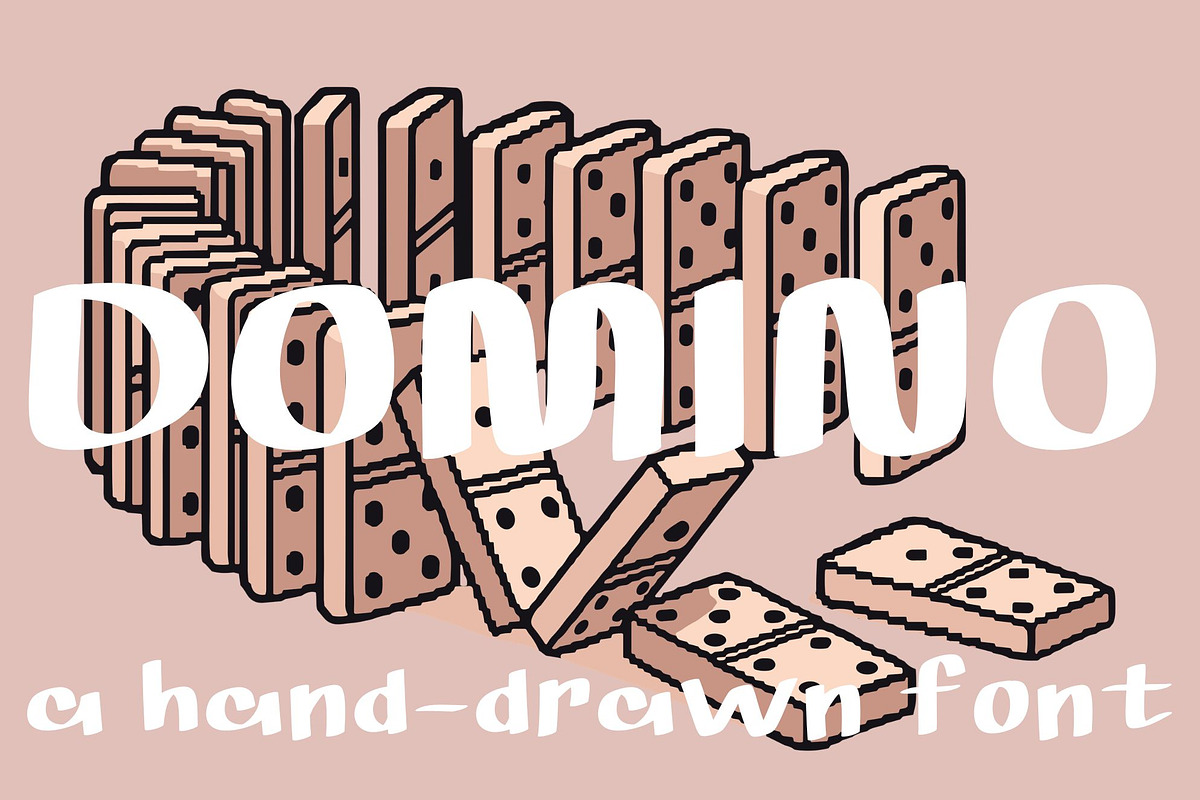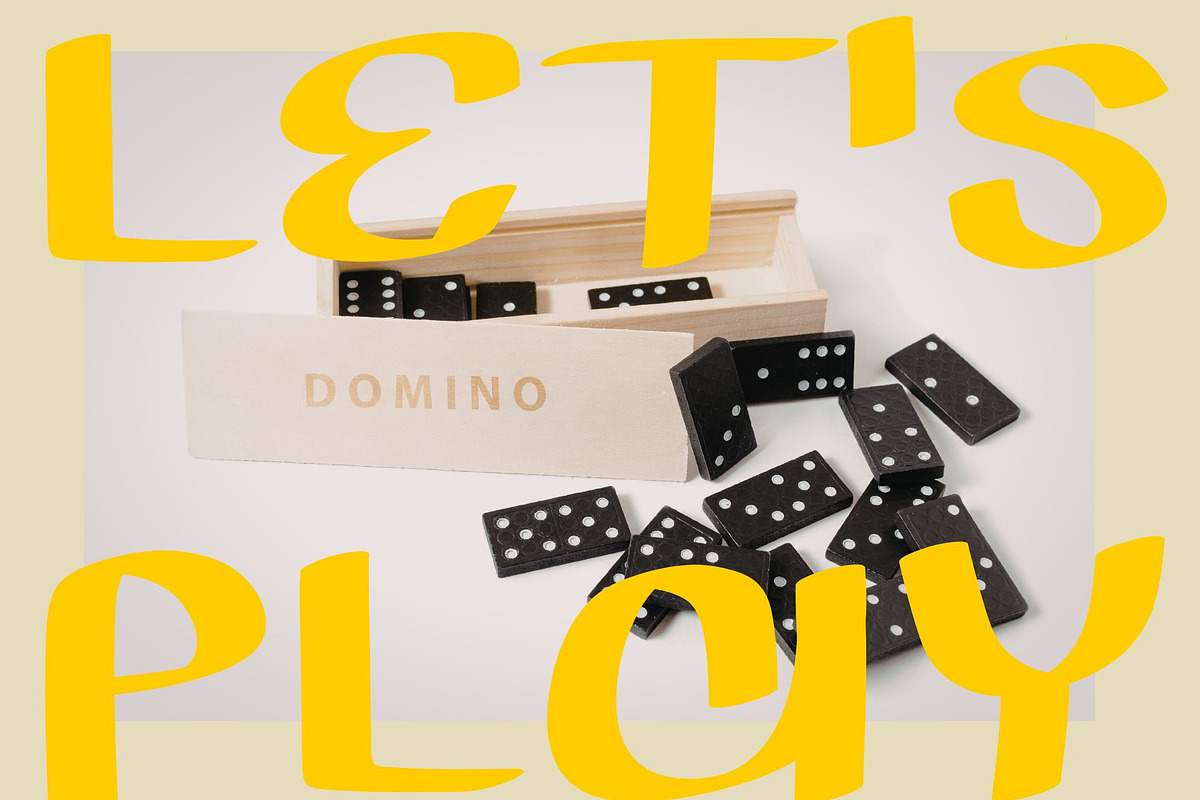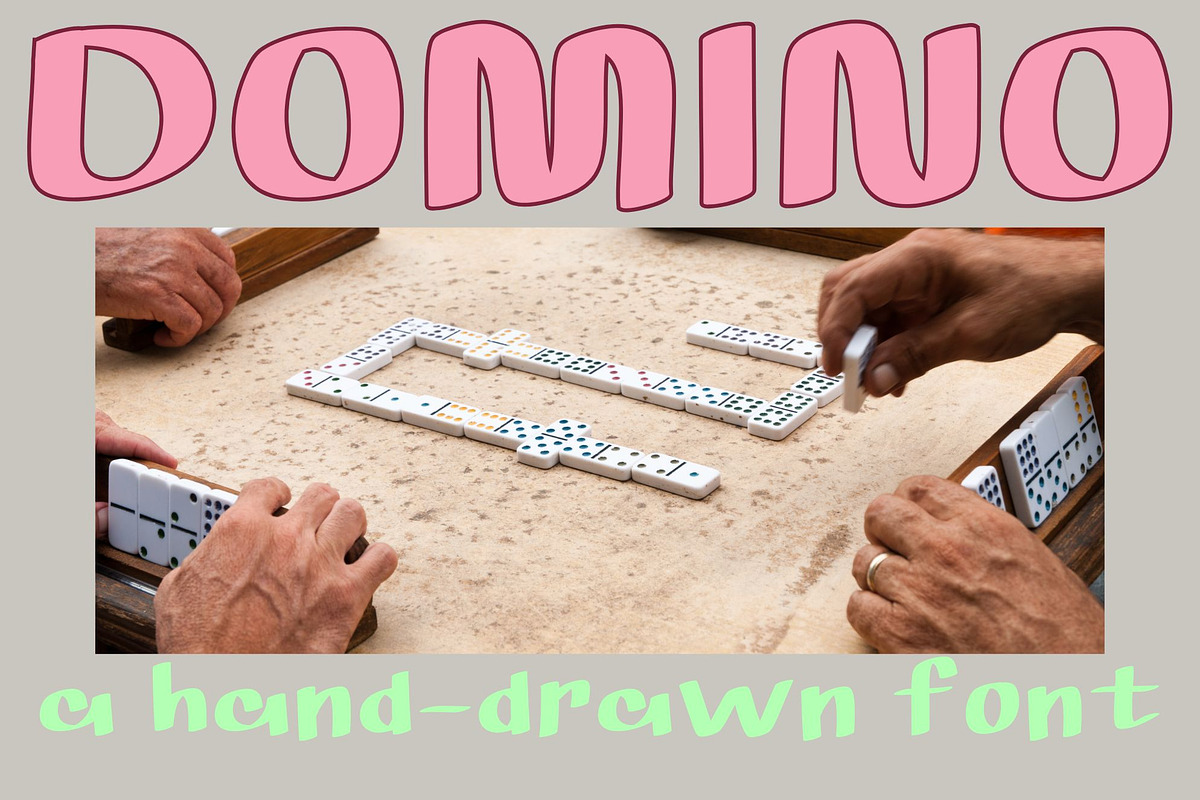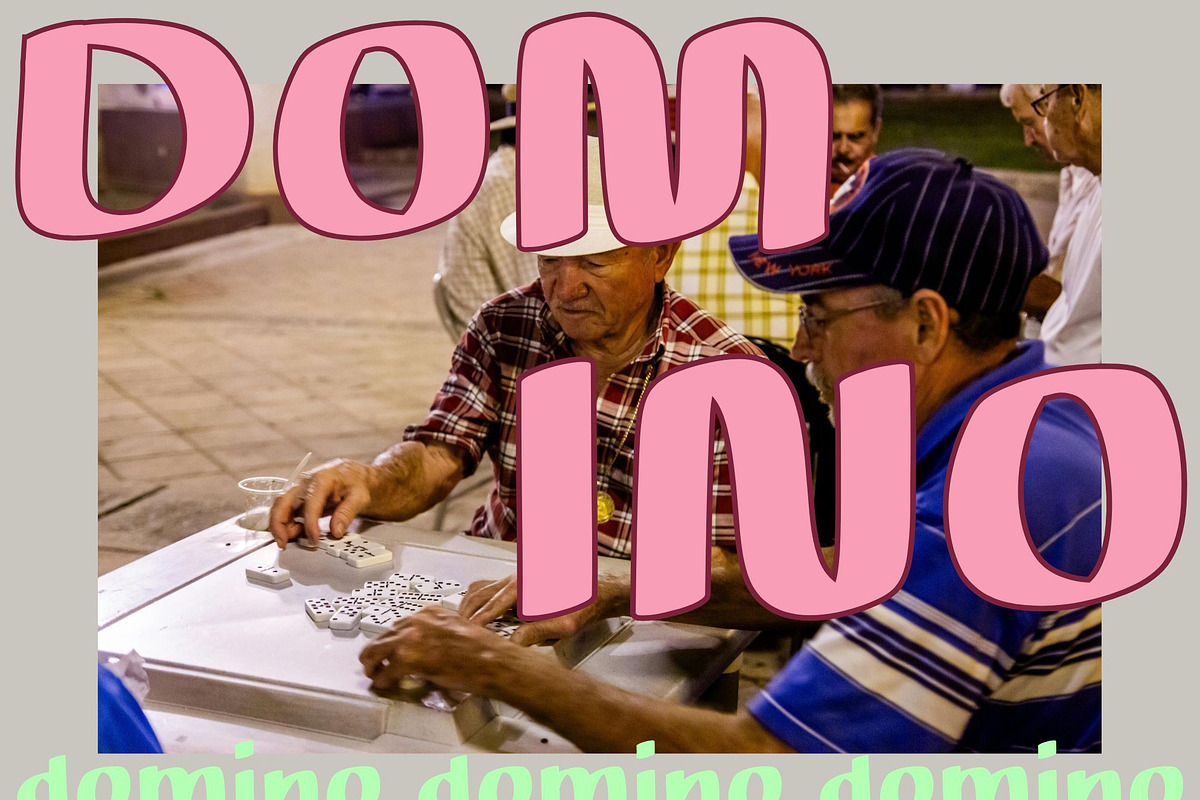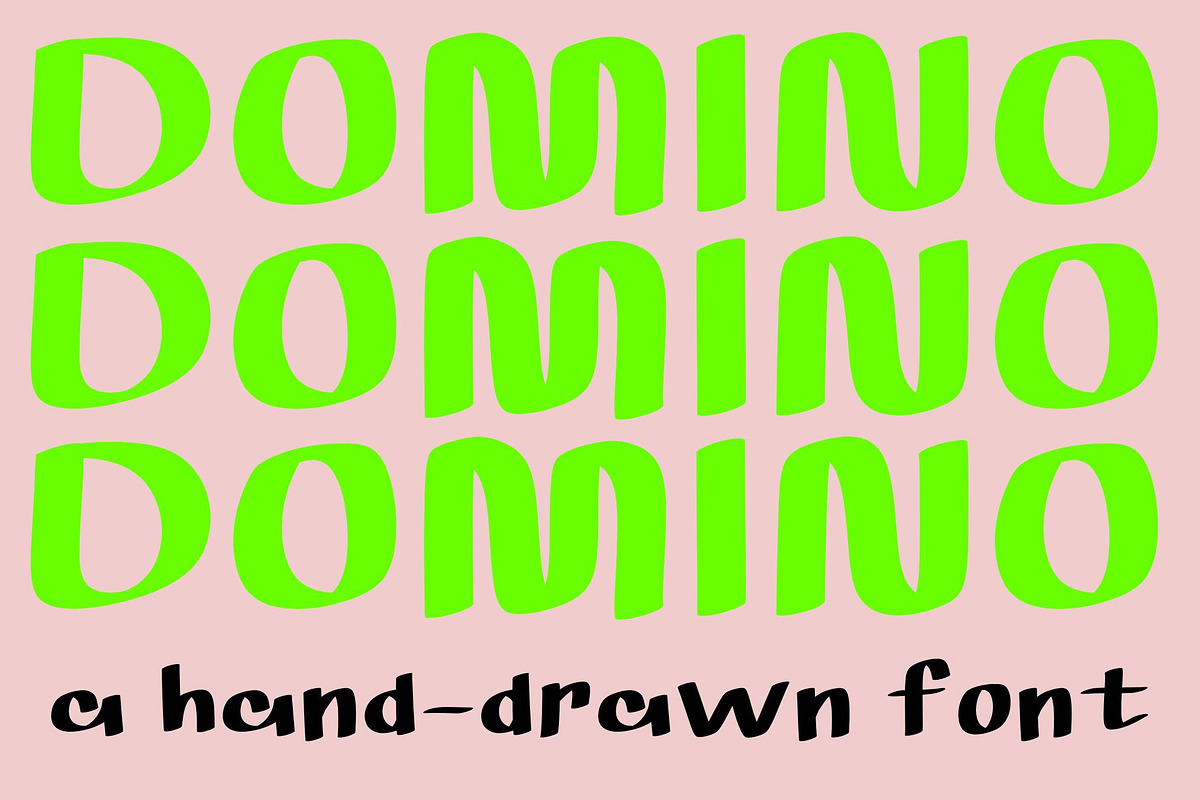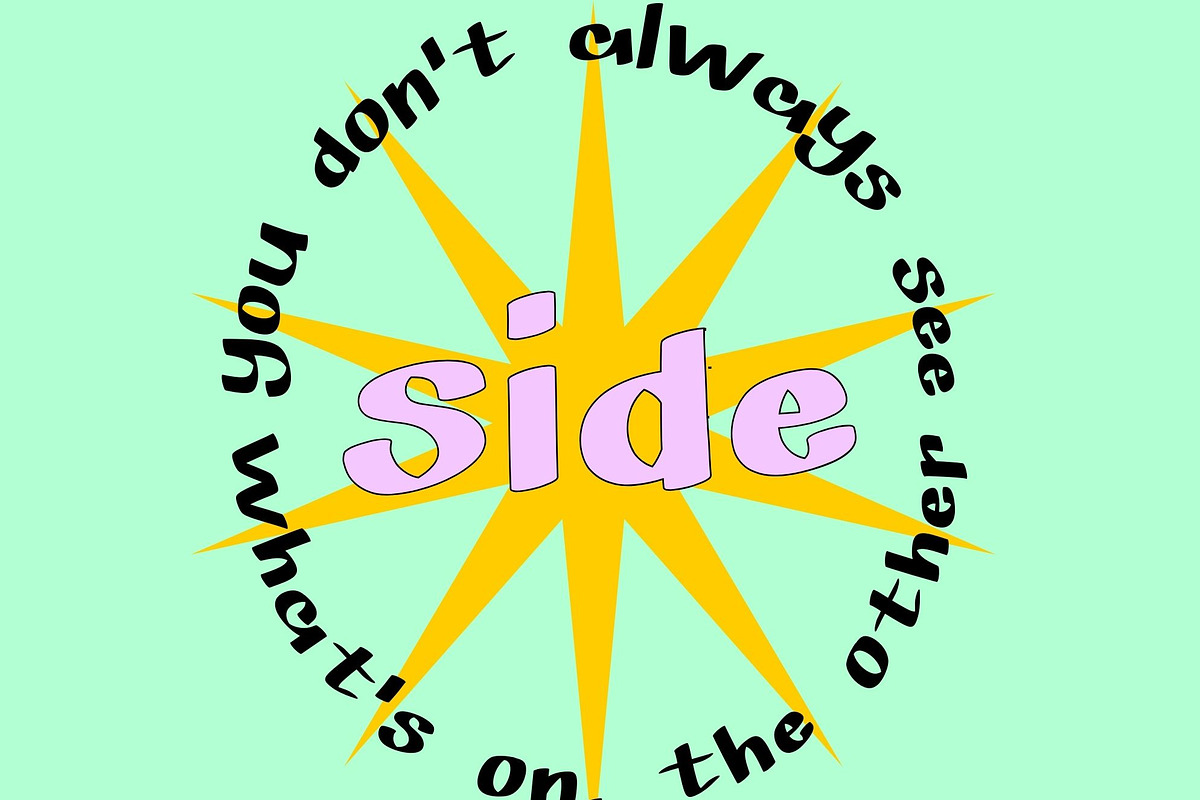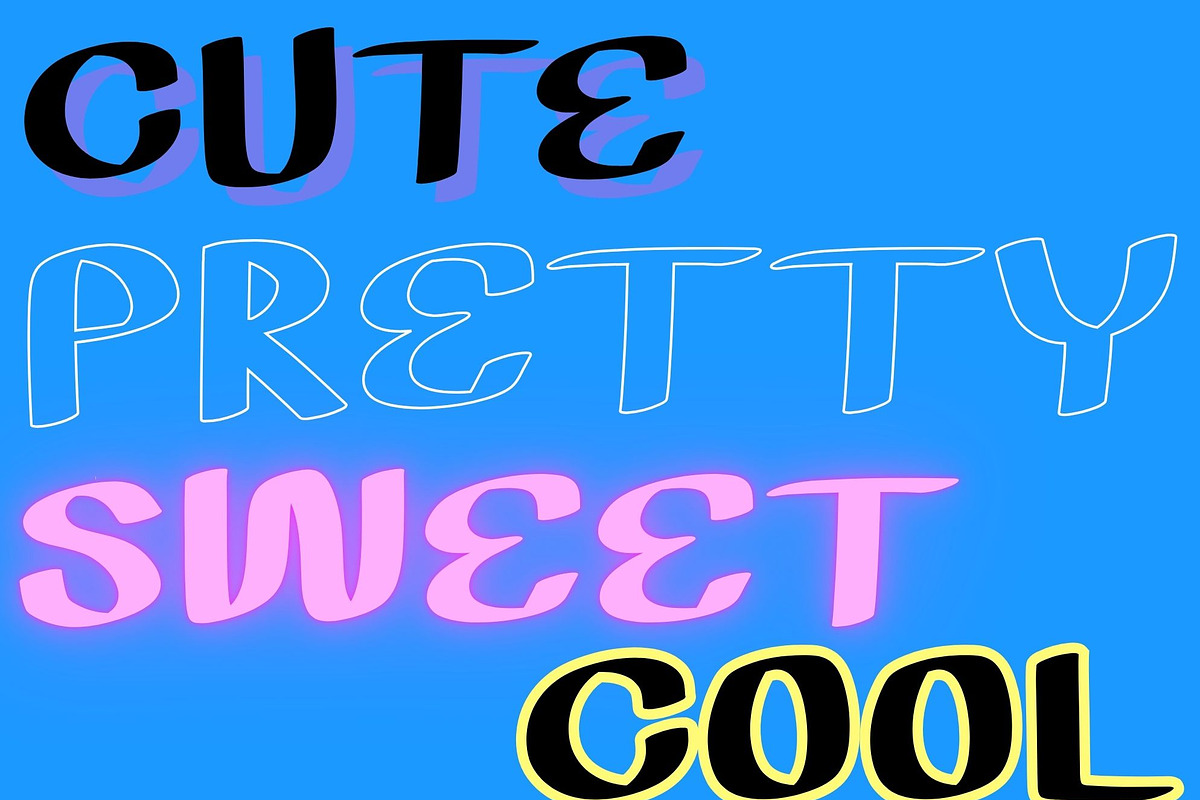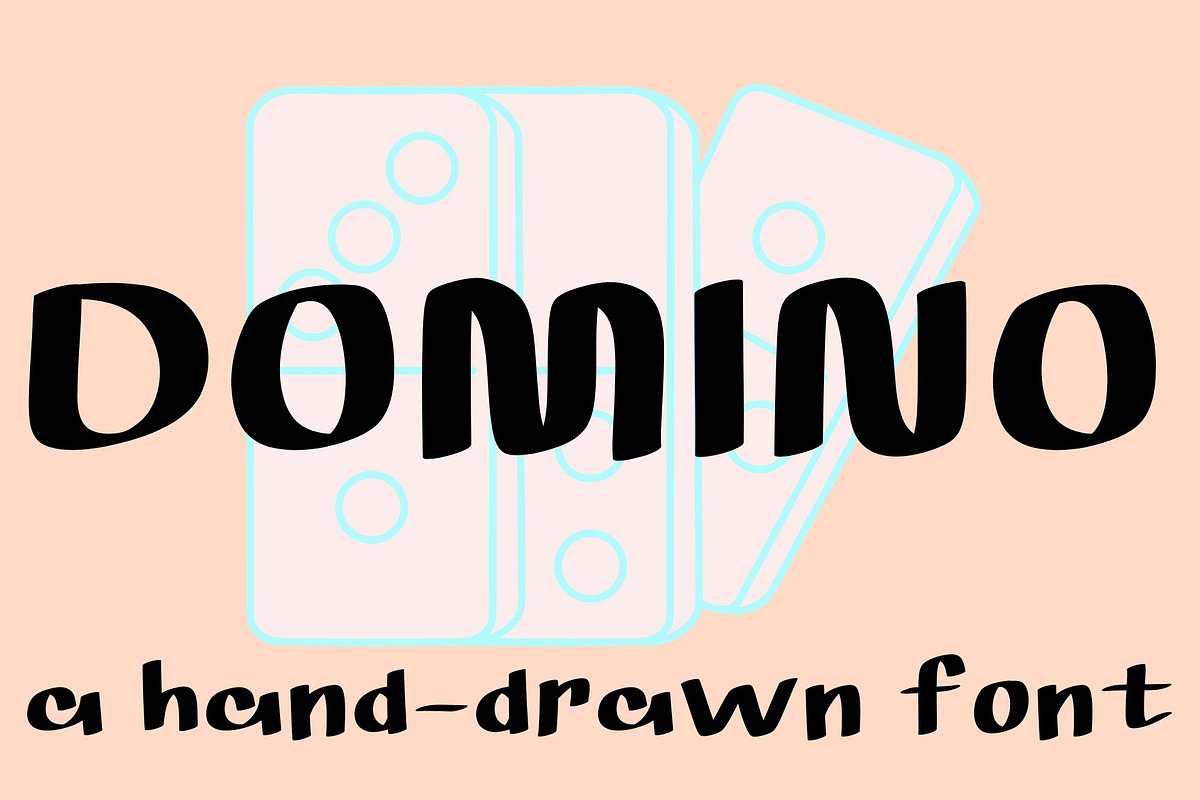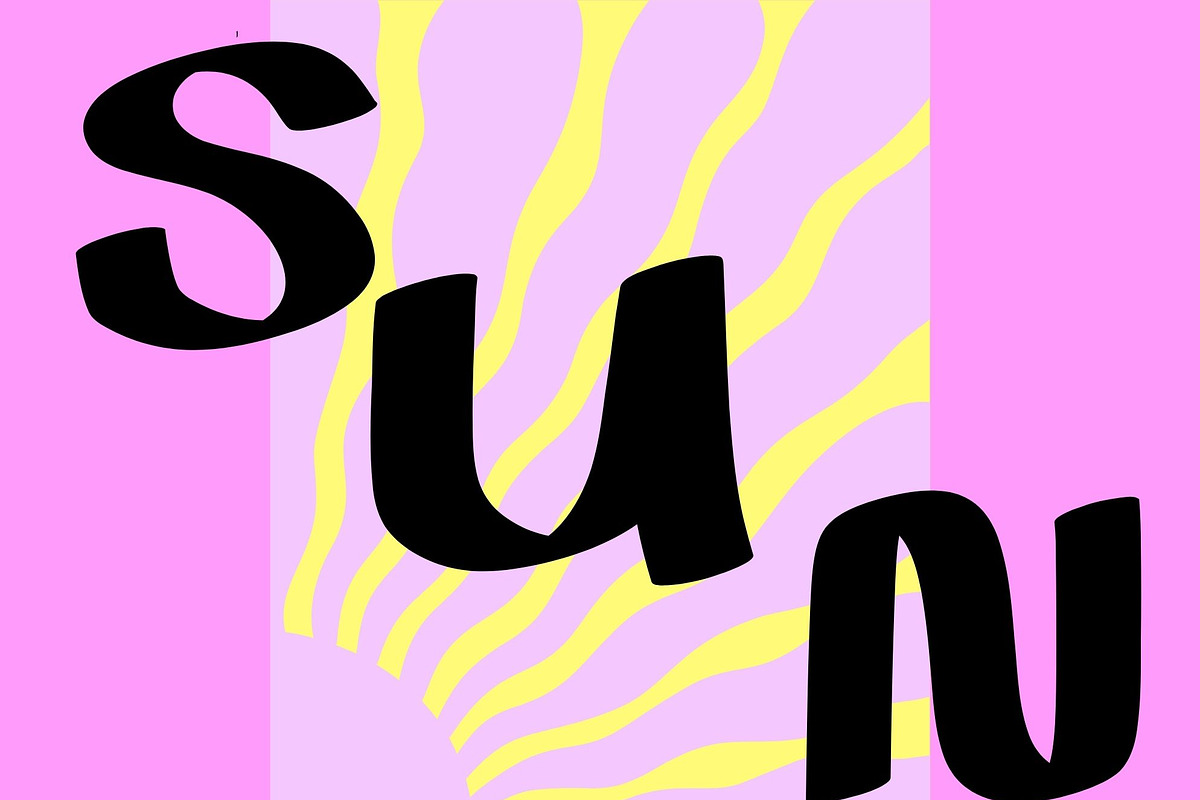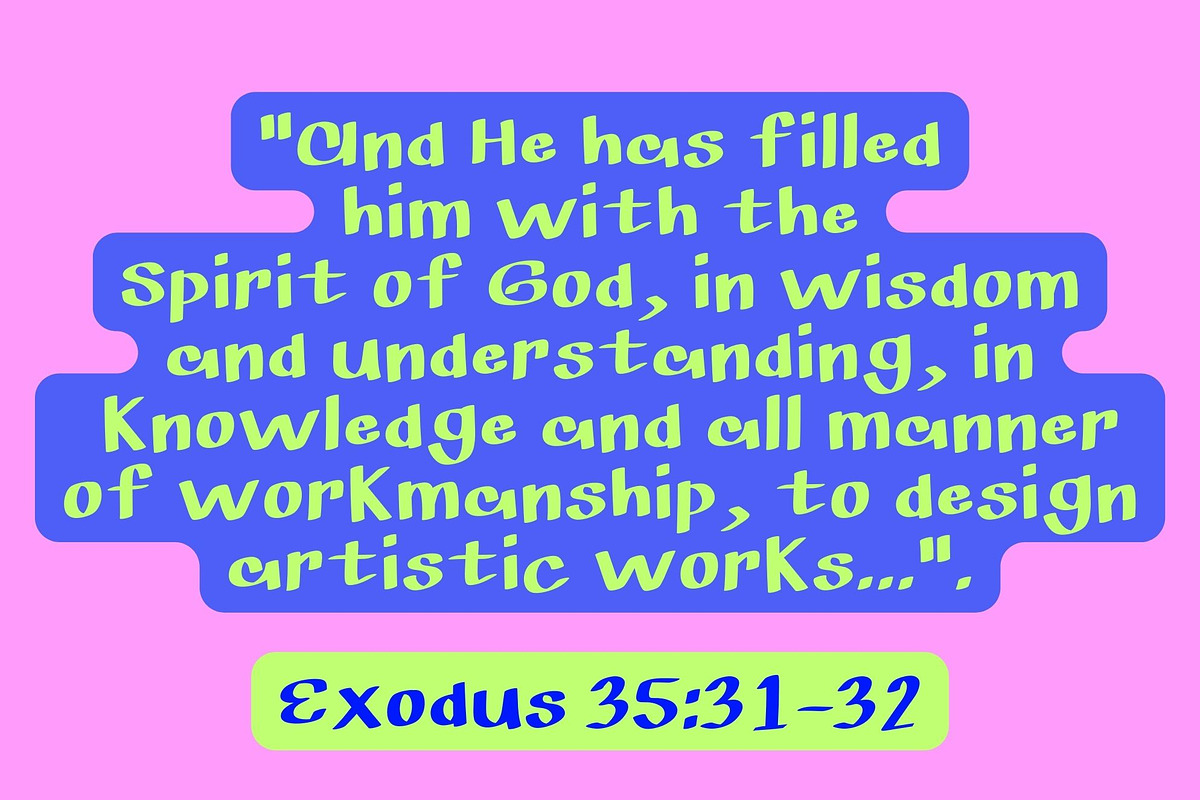
Domino
DOMINO is a thickly drawn, clean, smooth, and modern minimal font that features aesthetically hip stylistic elements. With open-ended A's and artistically rounded M's and N's, this font is perfect for professional advertisements, whether for a fresh new probiotic soda or a bag of organic chips. It brings a new edge to a classic 90s marketing style, reminiscent of iconic brands like Domino's Pizza, Subway, or the local gas station. This font embodies down-home American charm, making it a versatile choice for branding and packaging.
100 % hand-made
full numbers and symbols
full English alphabet